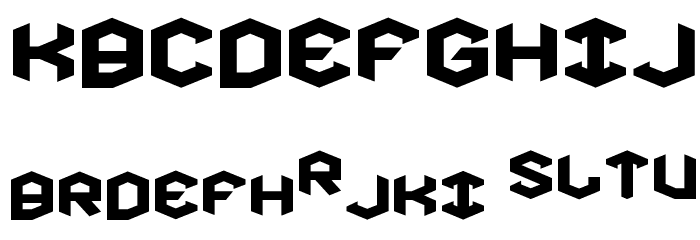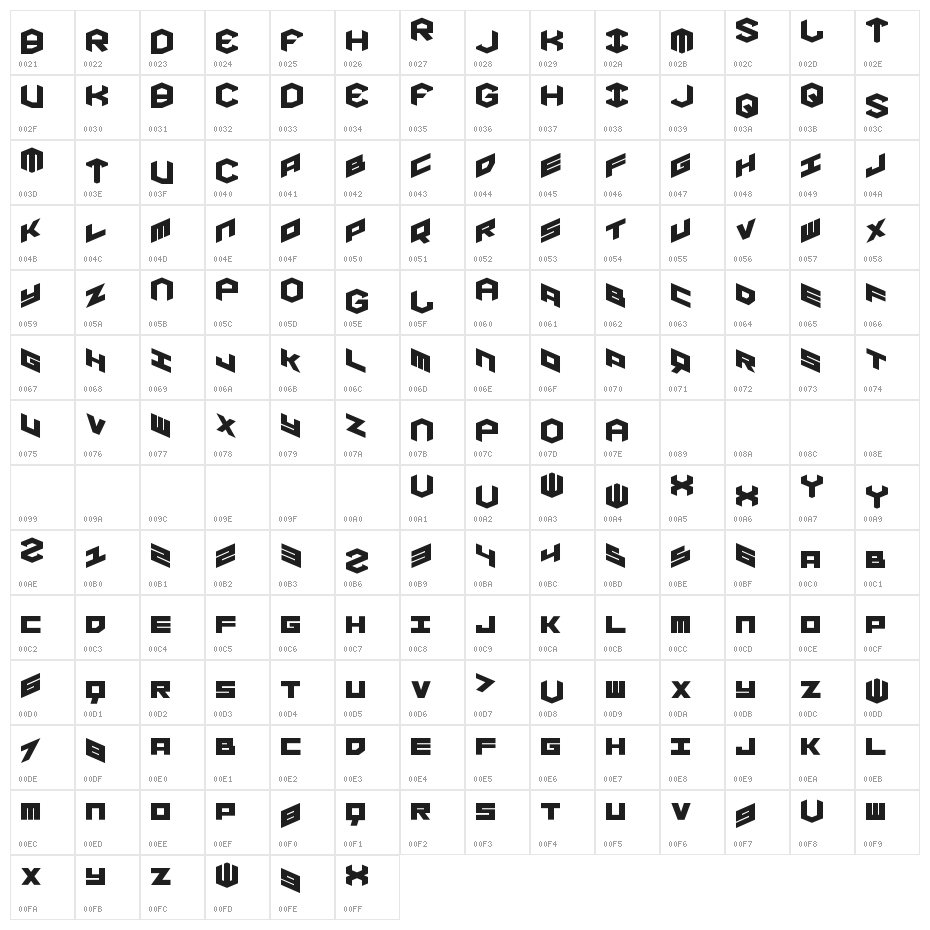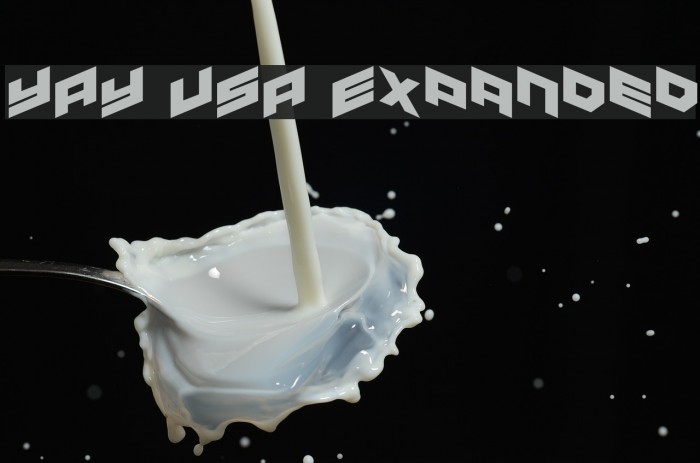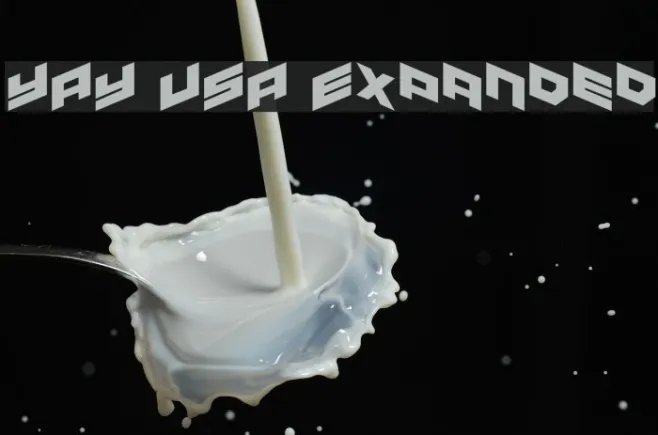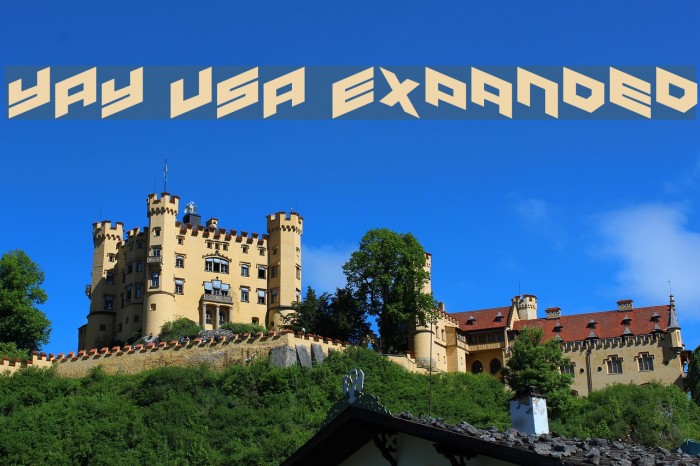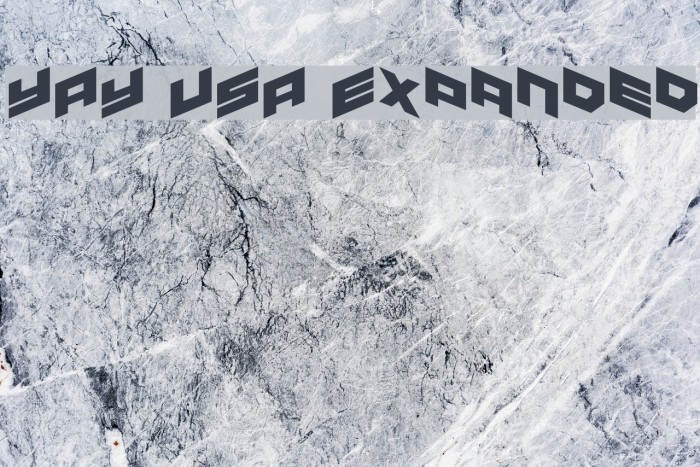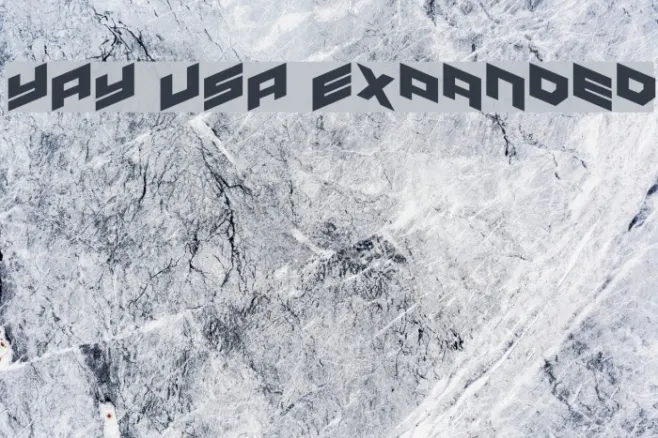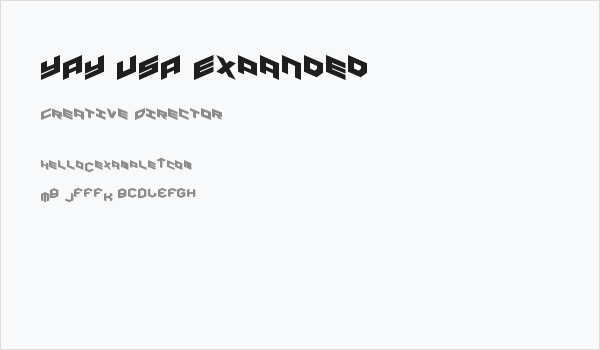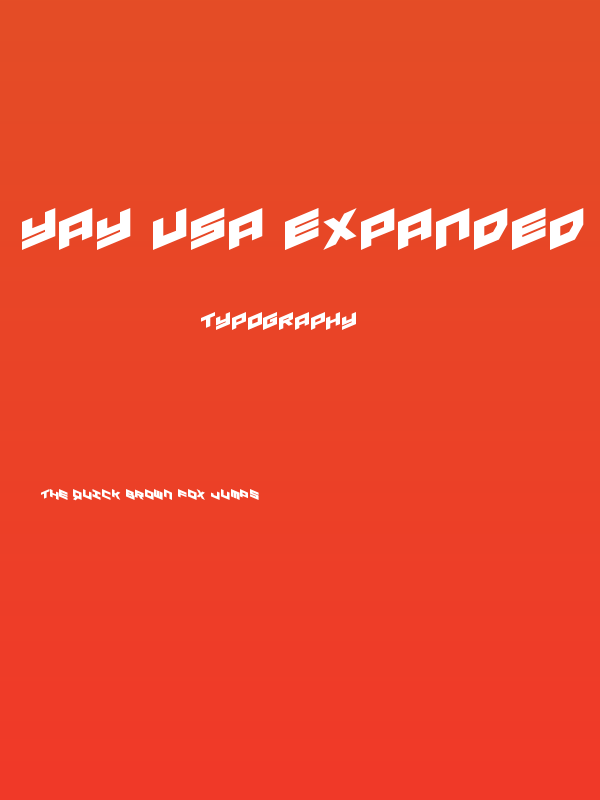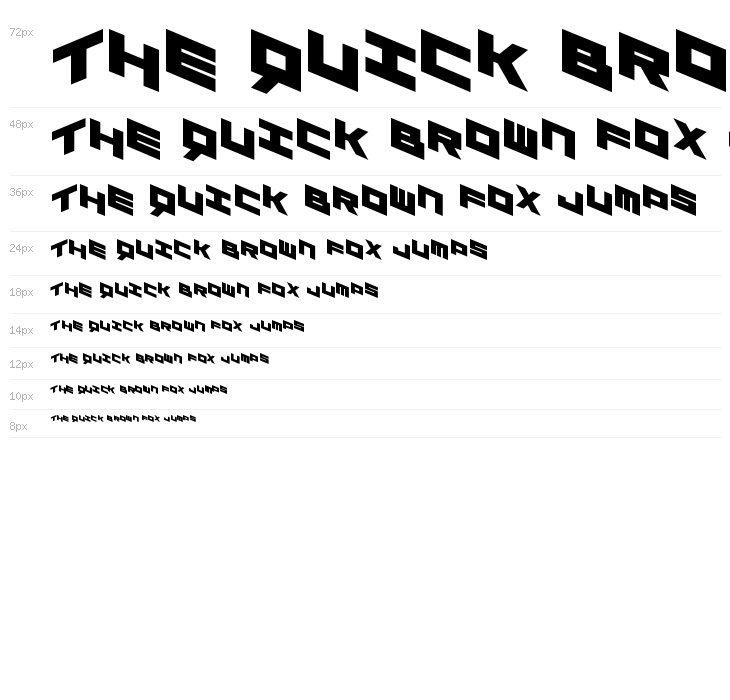
YAY USA Expanded Font
YAY USA Expanded Description
This font features a bold, angular design with a futuristic and dynamic appearance. The characters are constructed with sharp, geometric shapes that convey a sense of movement and energy. The uppercase letters are particularly striking, with a consistent slant that adds to the font's aggressive and modern feel. The lowercase letters maintain the same angular style, ensuring uniformity across the typeface. The numbers and special characters are designed to match the boldness and geometric nature of the alphabet, making this font suitable for impactful and attention-grabbing designs.
| Proposed Projects | Ideal for sports branding, video game titles, sci-fi movie posters, and dynamic logo designs. |